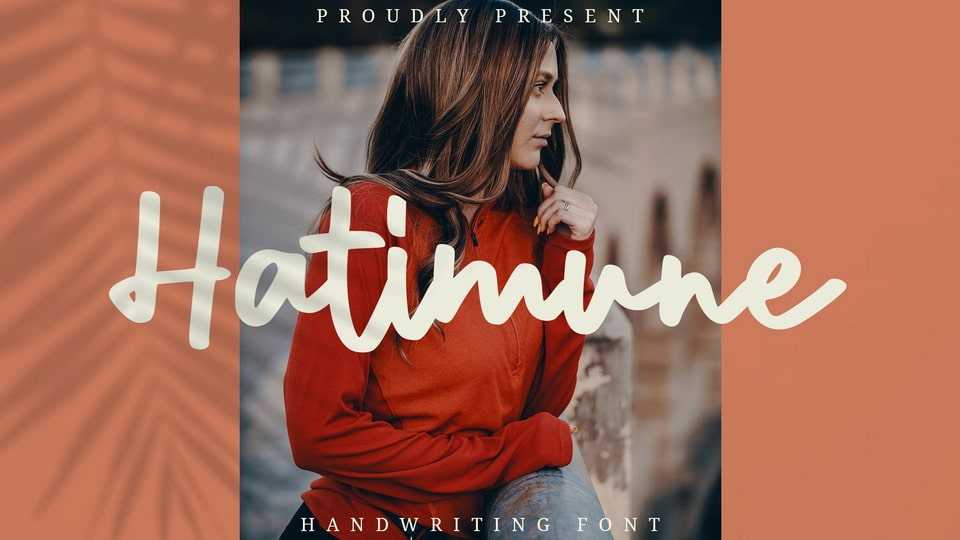
Download Hatimune font, an unique handwritten typeface. Whether you’re using Hatimune font for crafting, digital designing, presentations, or greeting card making, it’s perfect!